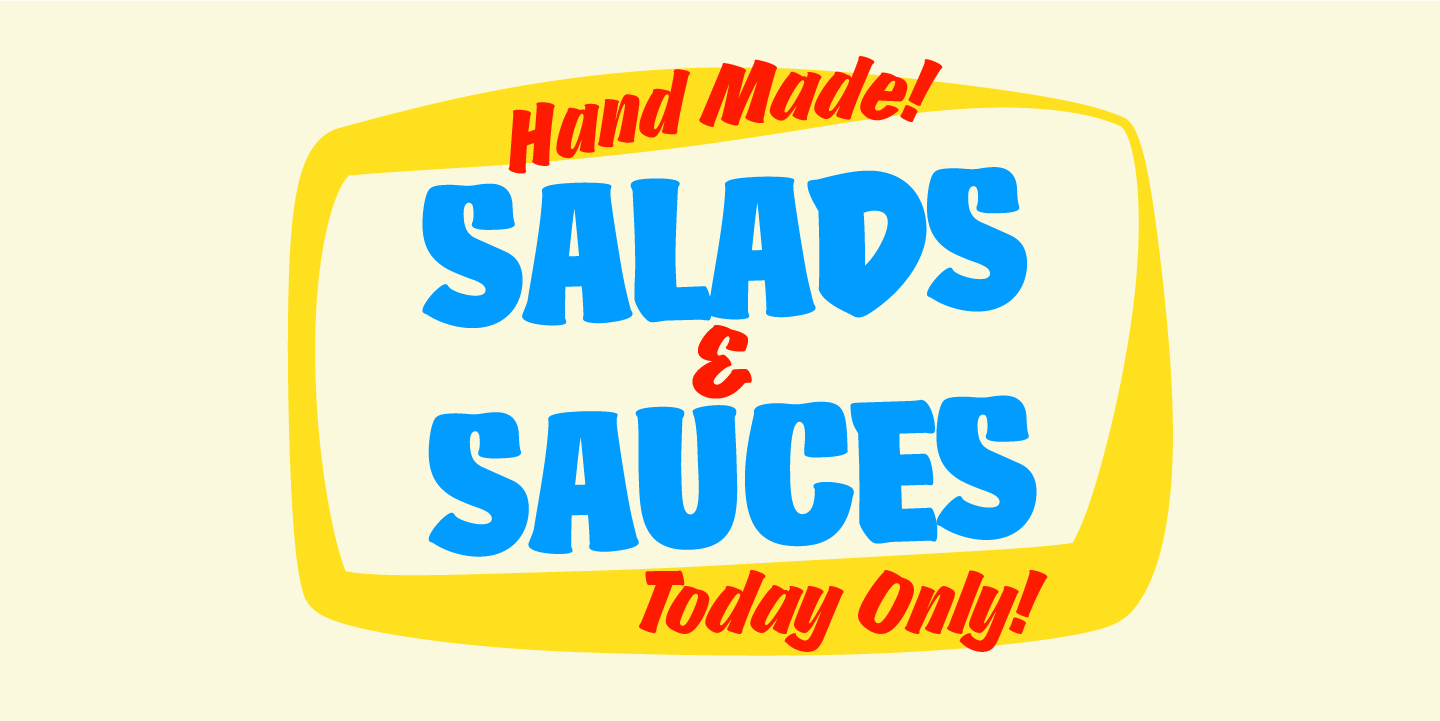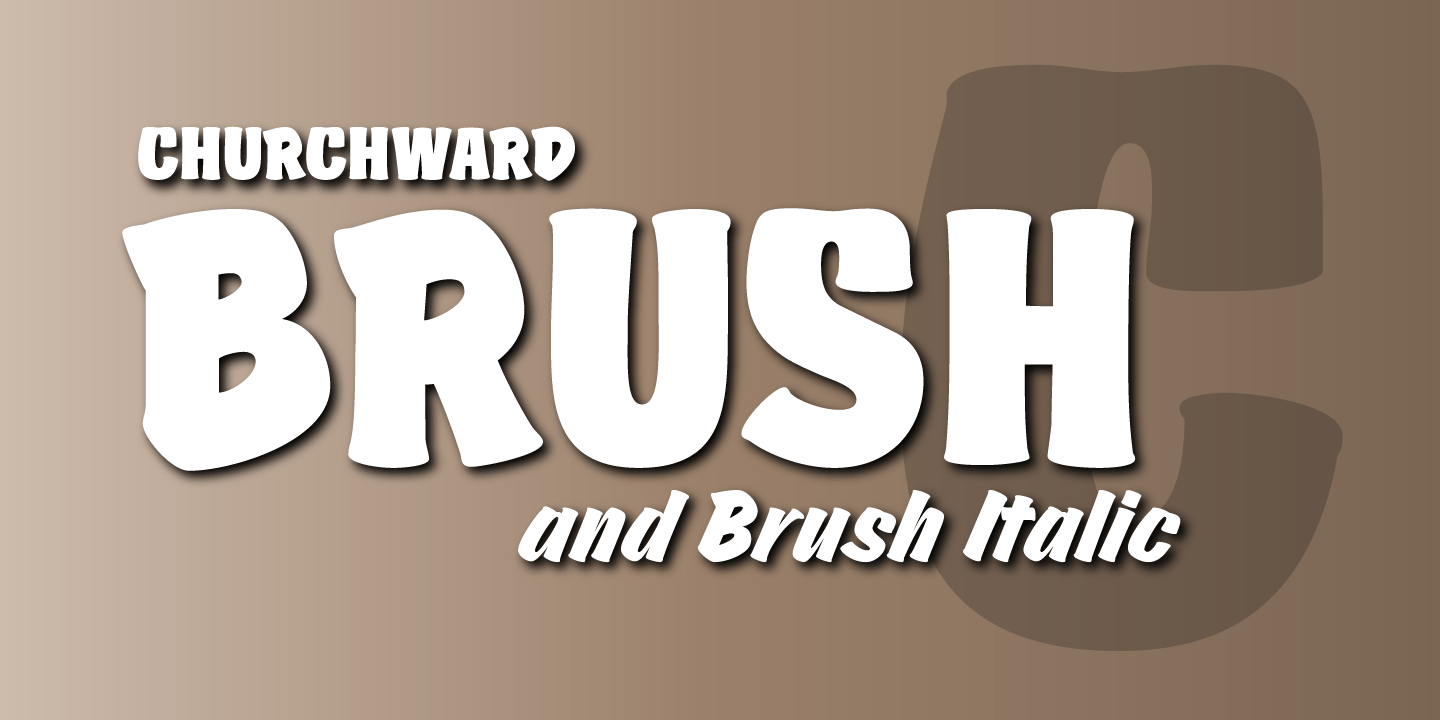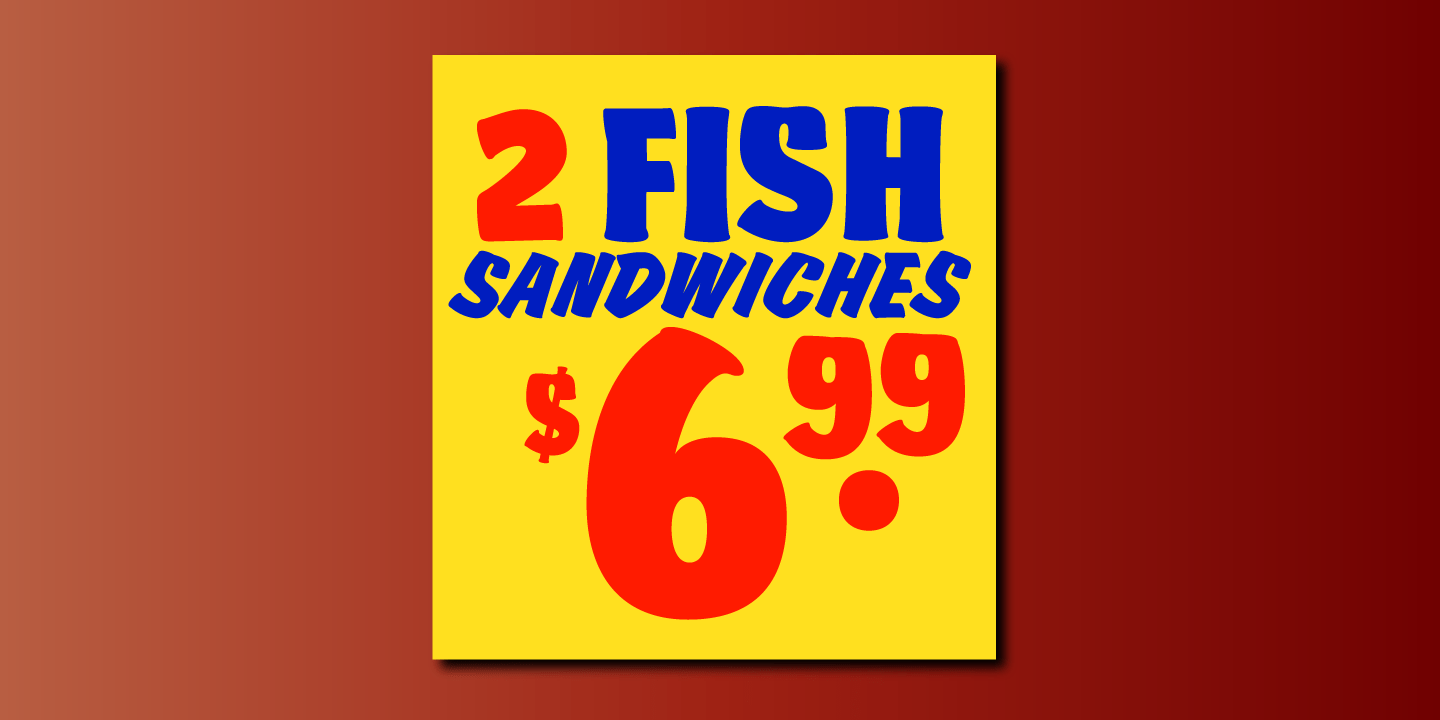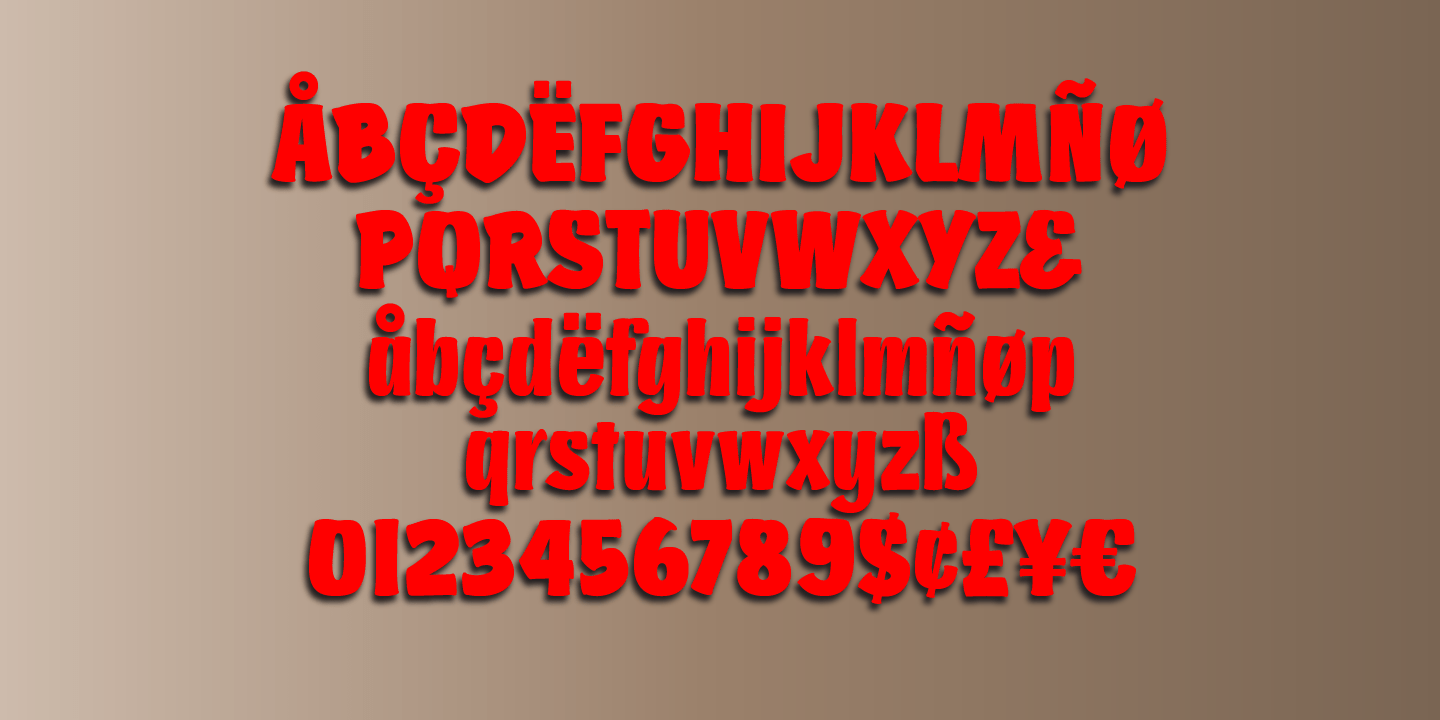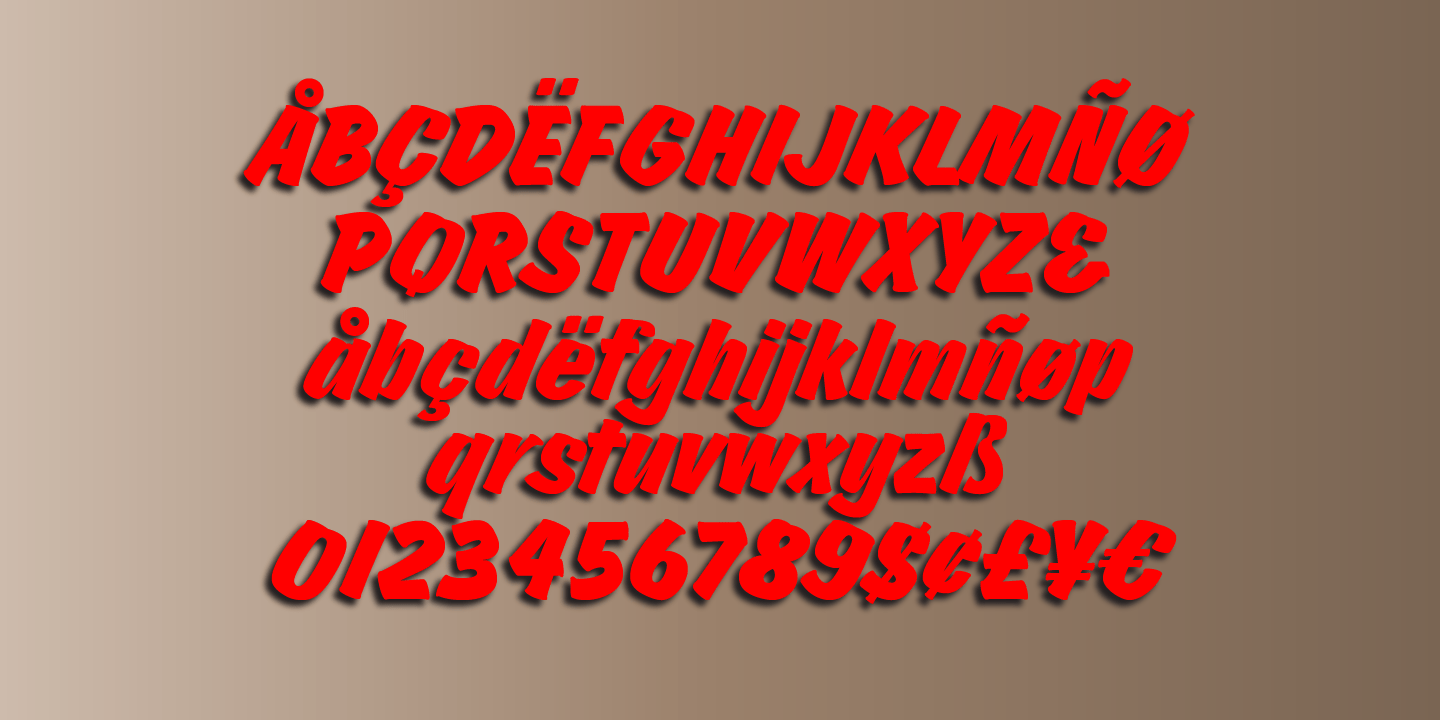
Churchward Brush
Font Family by BluHead Studio
This is Churchward Brush by the late designer Joseph Churchward. This showcard brush hand-lettered design looks great for flashy headlines and signage! Churchward Brush Italic is especially fun to work with! Get yours today!